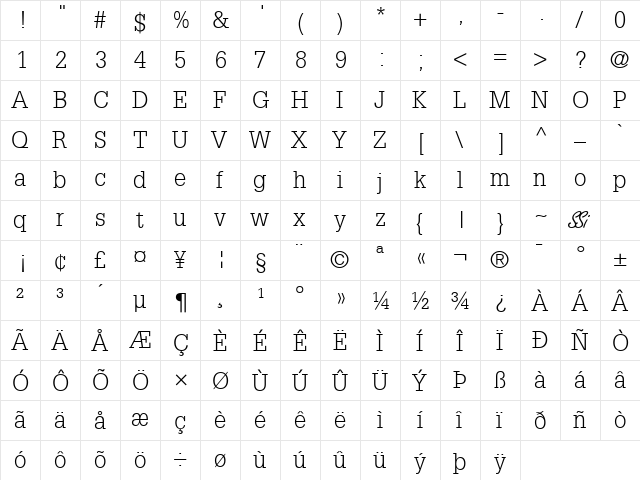
Installation Light SSi Light
Design Context for Installation Light SSi Typeface
Installation Light SSi is a composed and adaptable typeface that performs quietly and consistently across a wide range of design contexts. The delicate stroke weight brings airiness and refinement to layouts.